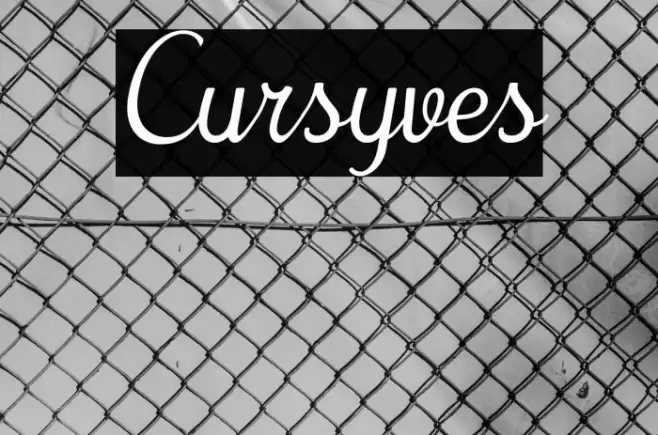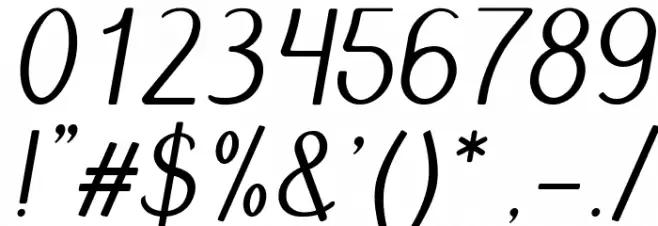
Cursyves Font
Cursyves Description
This font features a flowing, cursive style with elegant loops and swirls, giving it a handwritten appearance. The uppercase letters are slightly more ornate, with extended strokes and flourishes, while the lowercase letters maintain a consistent, smooth flow. The numerals and special characters are designed to match the overall cursive theme, with rounded edges and a playful yet sophisticated look. This font is perfect for projects that require a personal touch, such as invitations, greeting cards, or branding materials. Its unique style makes it stand out, adding a touch of elegance and charm to any design.
- Proposed Projects: Ideal for invitations, greeting cards, branding, and decorative projects.
- Use Case: Headlines, Logos, Decorative text